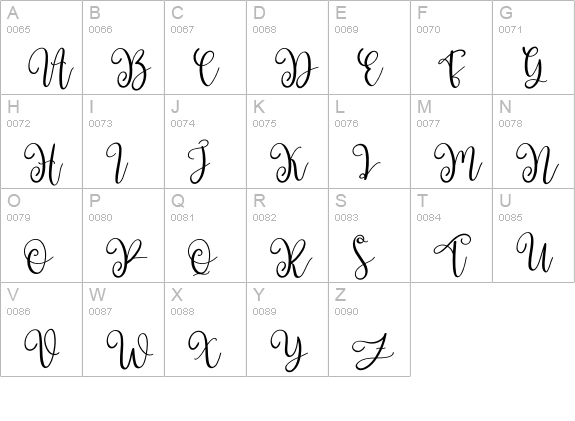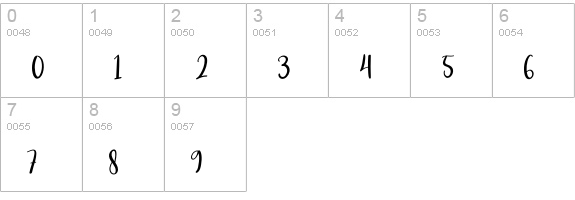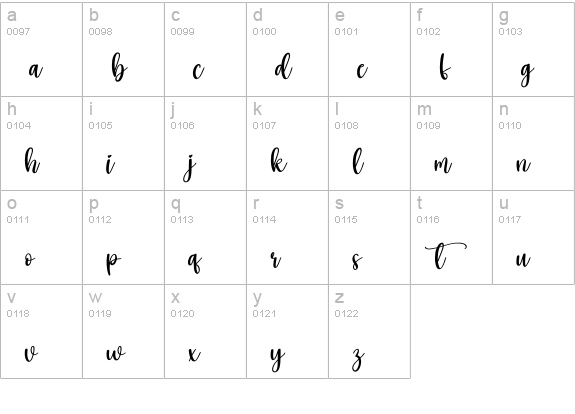
Milkcheese is a free for personal use font in the Script > Handwritten category, designed by scratchones. It has been downloaded 10 times and is available for Windows, Mac and Linux.
Introducing Milkcheese font, a delightful and whimsical typeface that is sure to add a touch of charm to your design projects. This unique font features a playful yet elegant style, making it perfect for a wide range of applications such as branding, invitations, packaging, and more.
Milkcheese font is the perfect choice for those looking to add a touch of creativity and personality to their designs. Whether you're working on a fun and quirky project or aiming for a more sophisticated look, this versatile font has got you covered.